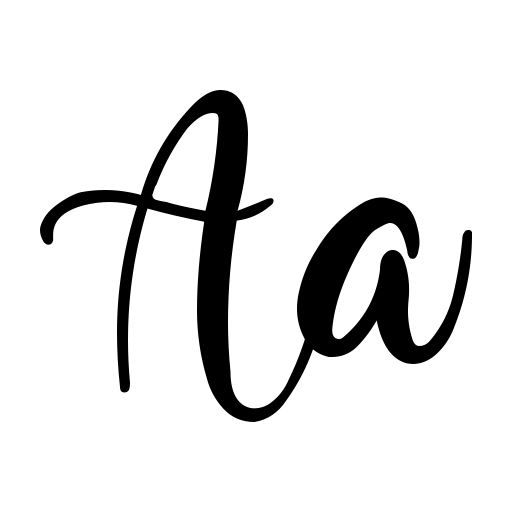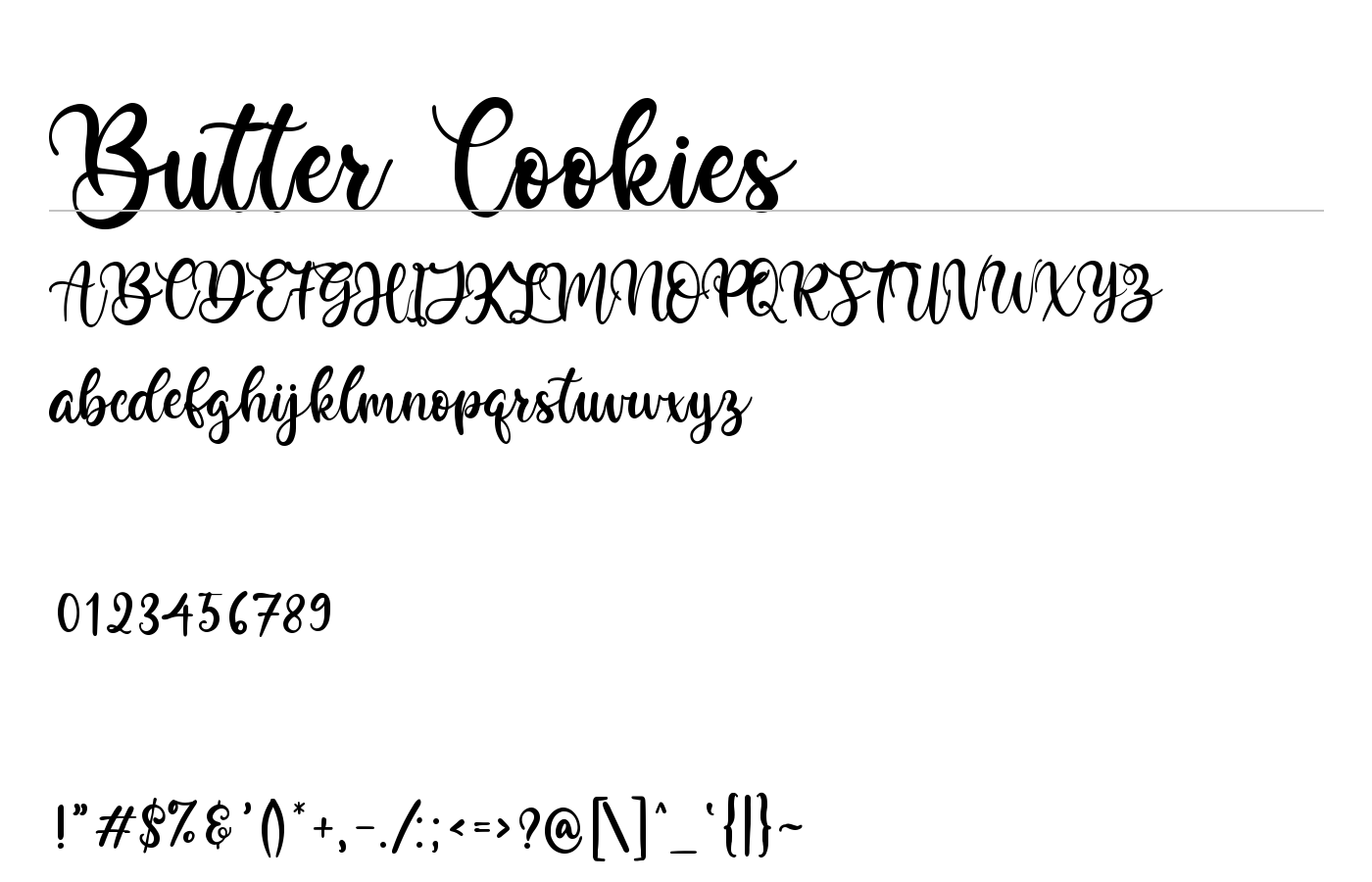
Butter Cookies is a playful and elegant script font that features smooth, flowing strokes with a medium weight and a lively, hand-drawn feel. It combines whimsical uppercase letters with approachable, rounded lowercase forms, making it perfect for creative branding, invitations, and packaging that seek a friendly yet stylish touch. This font’s charm and warmth make it especially suitable for lifestyle, fashion, and artisanal product designs.
Butter Cookies Font
About Butter Cookies Font